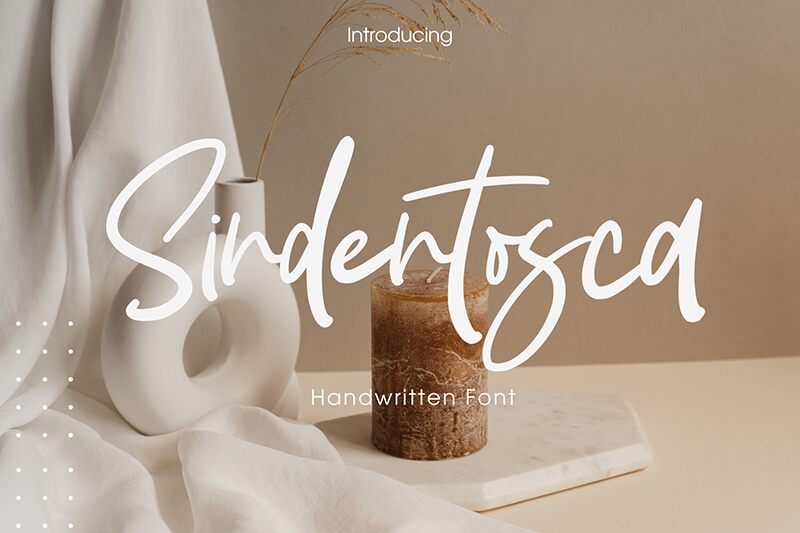
Sindentosca font by Ibrahima Studio is a handwritten signature font inspired by modern designs. Its expressive and flowing characters exhibit casual elegance with an artistic flair. Comfortable and straightforward, it channels the vibes of handwriting fonts while being polished enough to pass as a signature font.
Sindentosca